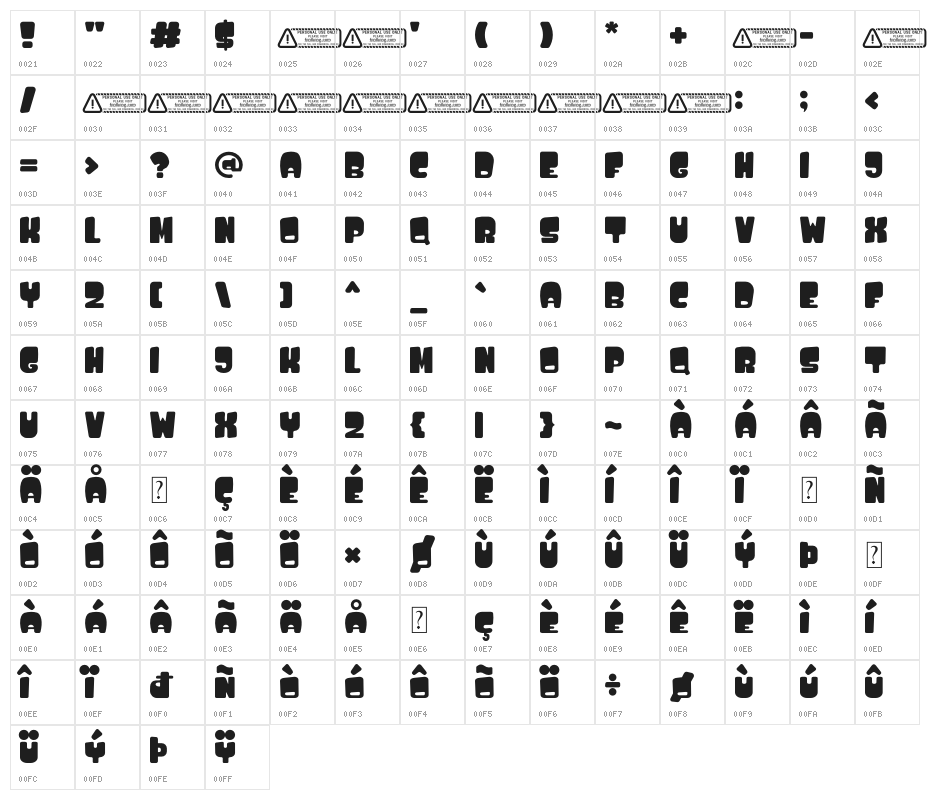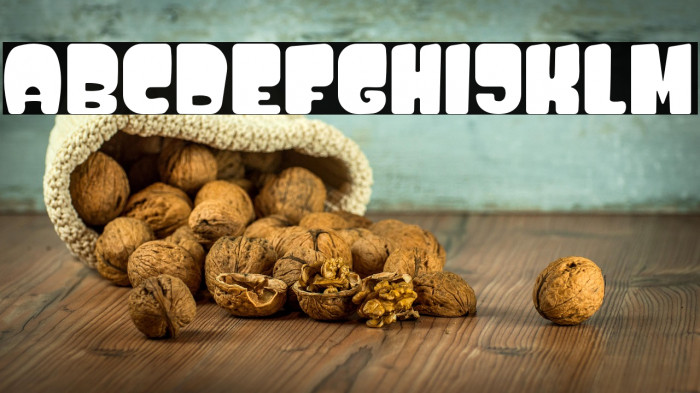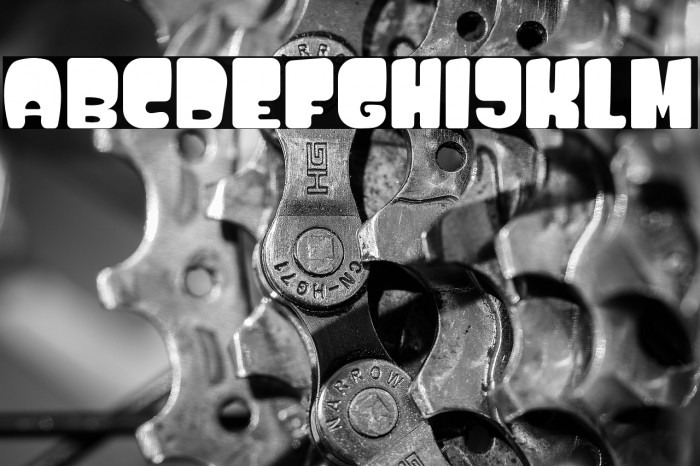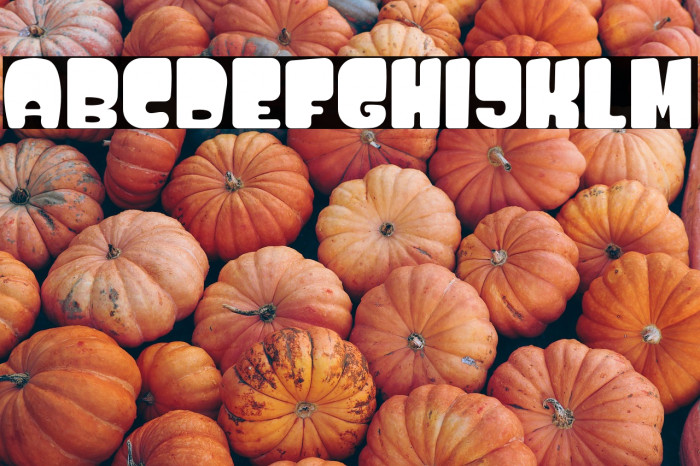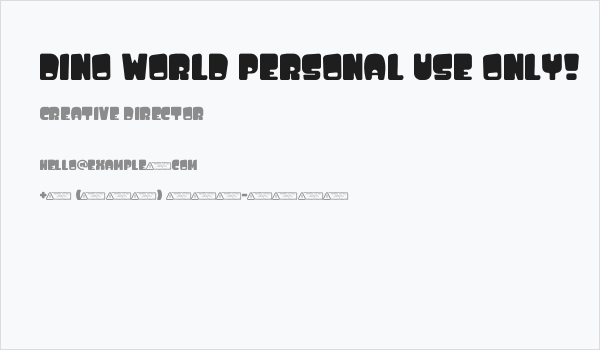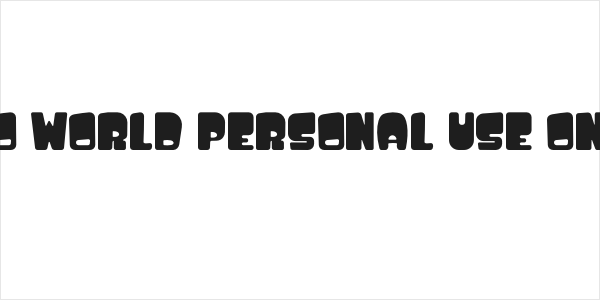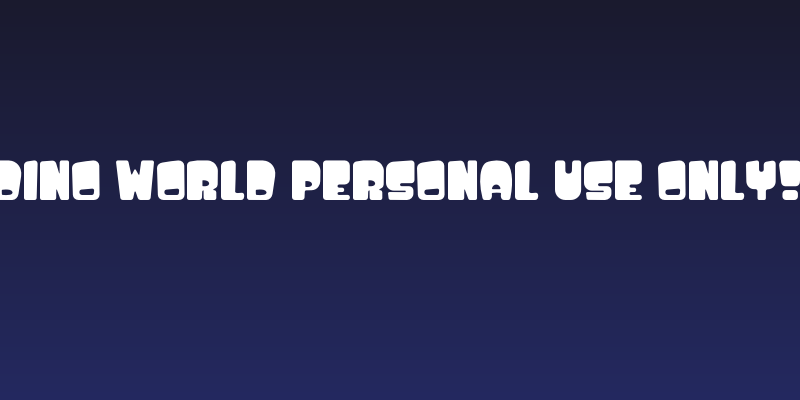
Dino World PERSONAL USE ONLY! Font
Dino World PERSONAL USE ONLY! Description
This font features a playful and bold design with rounded, chunky letters that evoke a sense of fun and creativity. The characters are uniformly thick, with minimal contrast in stroke width, giving them a strong, cohesive appearance. The style is reminiscent of cartoon or comic lettering, making it ideal for projects that require a lively and engaging aesthetic. The uppercase letters are particularly prominent, with a slightly condensed form that enhances their impact. The font includes a variety of special characters, maintaining the same bold and rounded style throughout.
| Overall Style | Playful, Cartoonish |
| Use Case | Headlines, Posters, Branding |
| Proposed Projects | Perfect for children's books, playful branding, posters, and any project needing a fun, engaging typeface. |